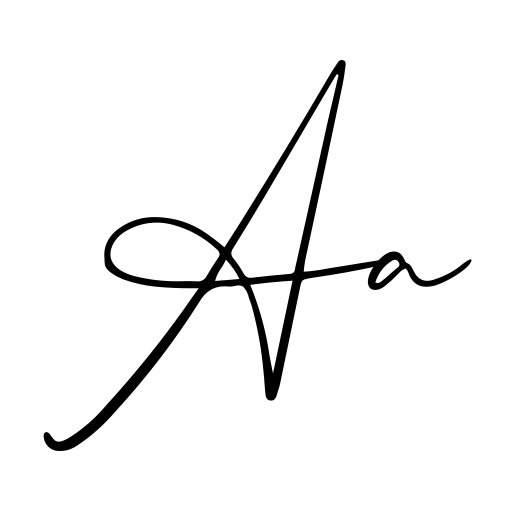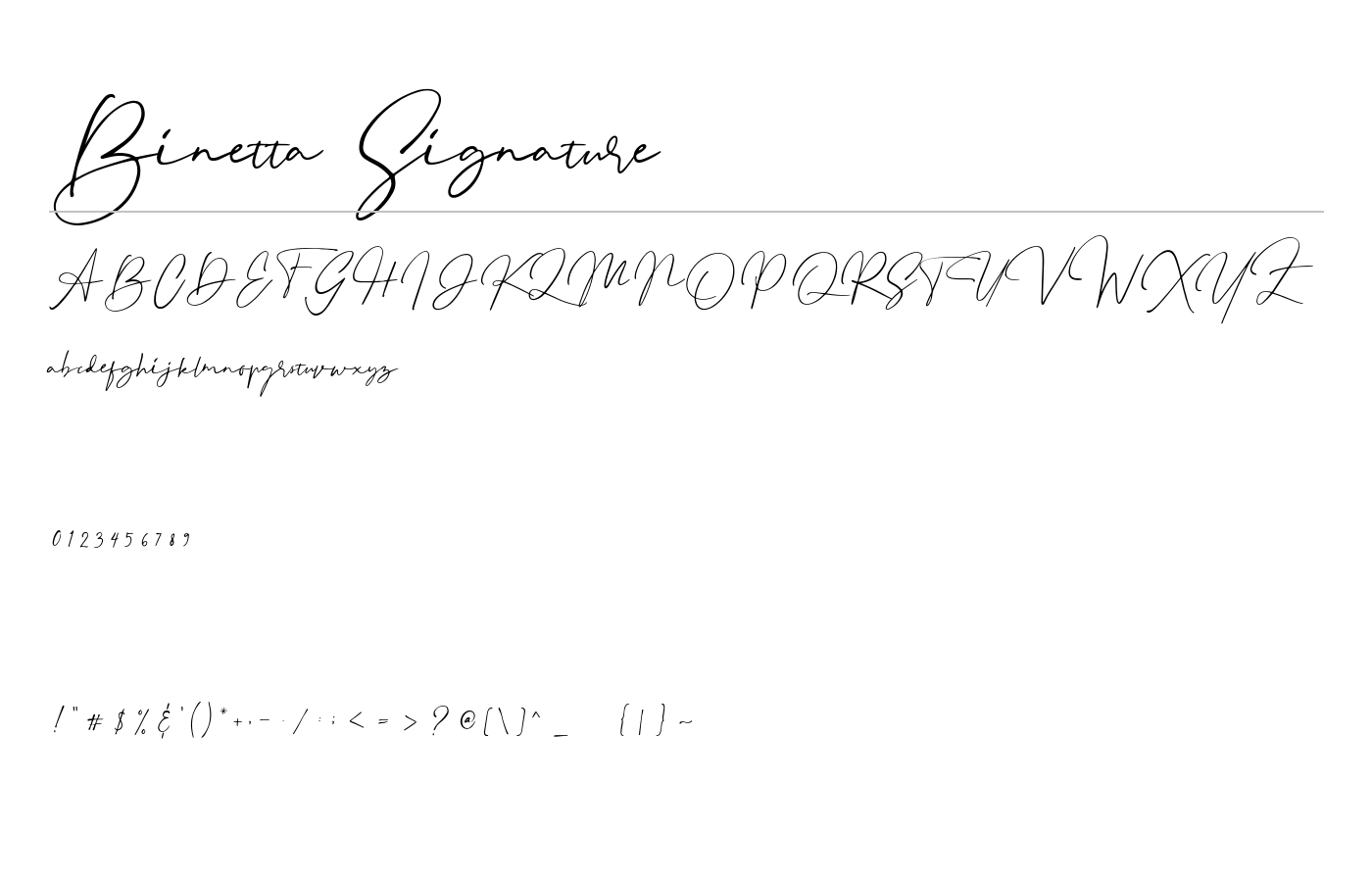
Binetta Signature is a delicate, elegant script font that mimics natural handwriting with slender, flowing strokes and high contrast between thin lines and subtle curves. Its tall, airy letterforms and smooth connections convey a sophisticated, personal touch, making it perfect for luxury branding, invitations, and creative logos where a refined, intimate feel is desired. This font works especially well in designs that need a stylish yet approachable signature look.
Binetta Signature Font